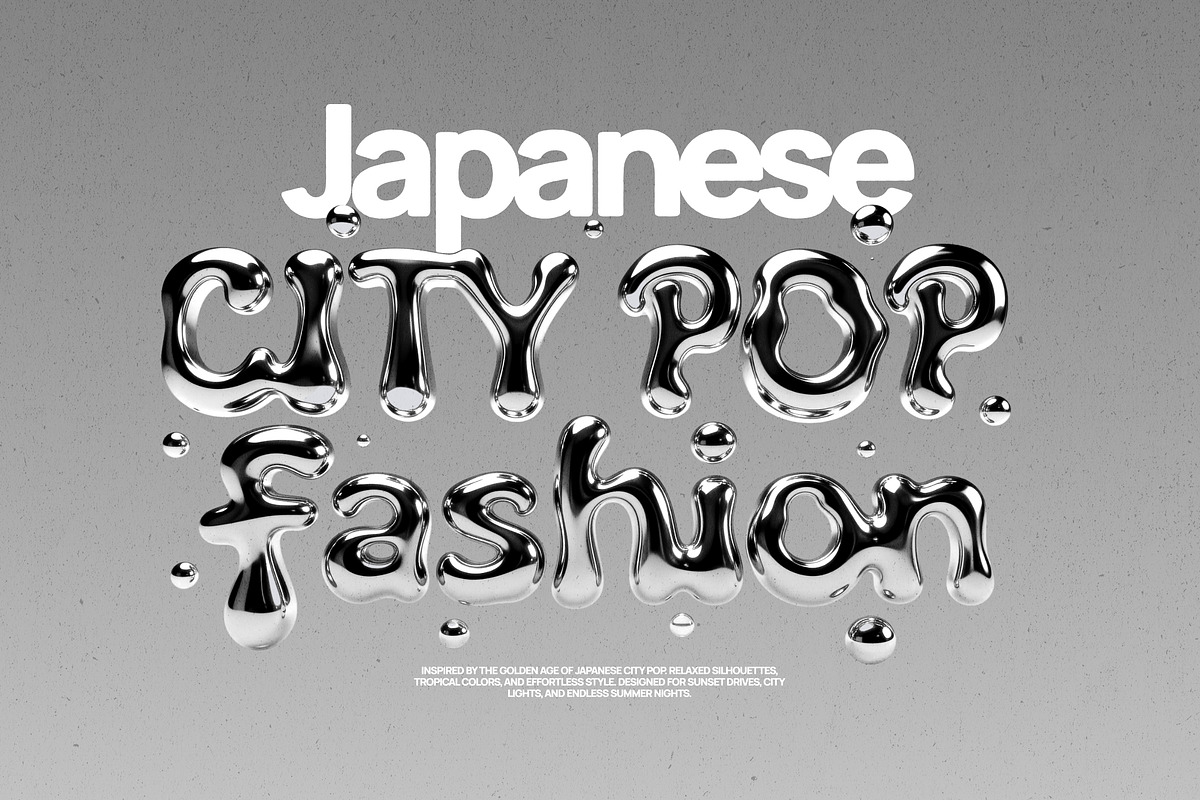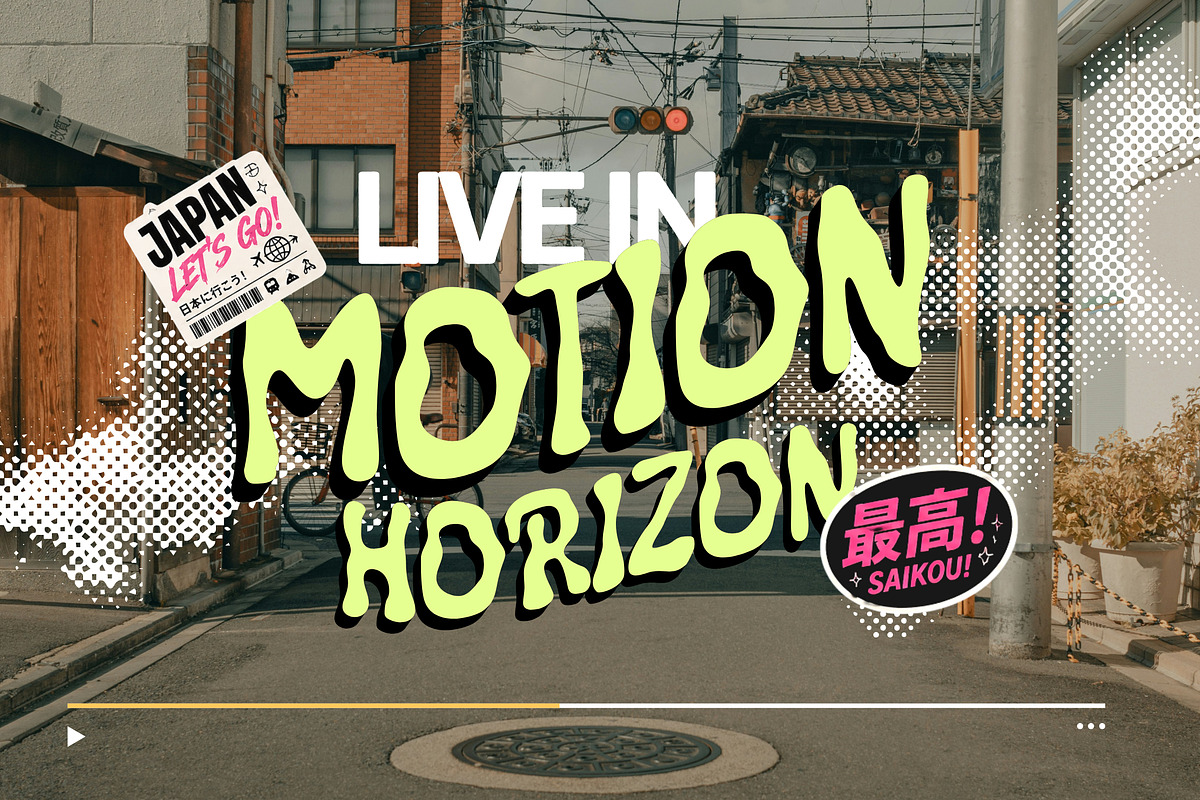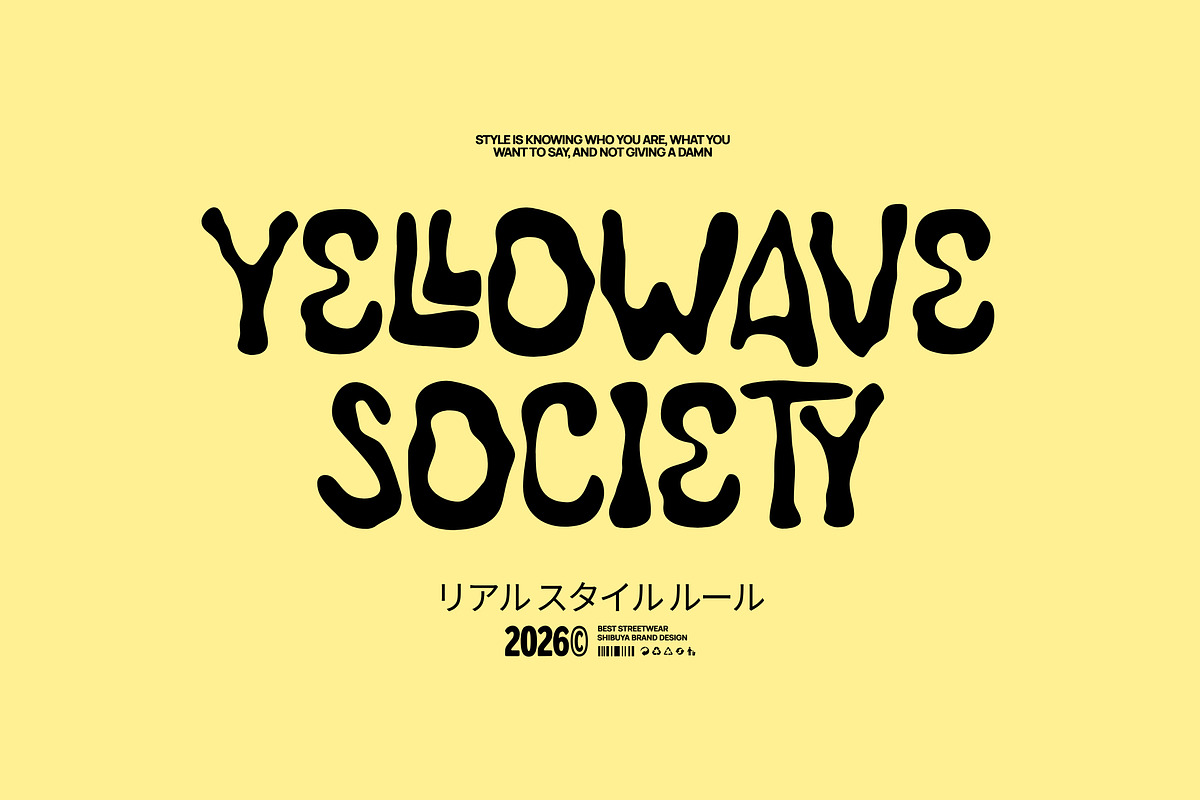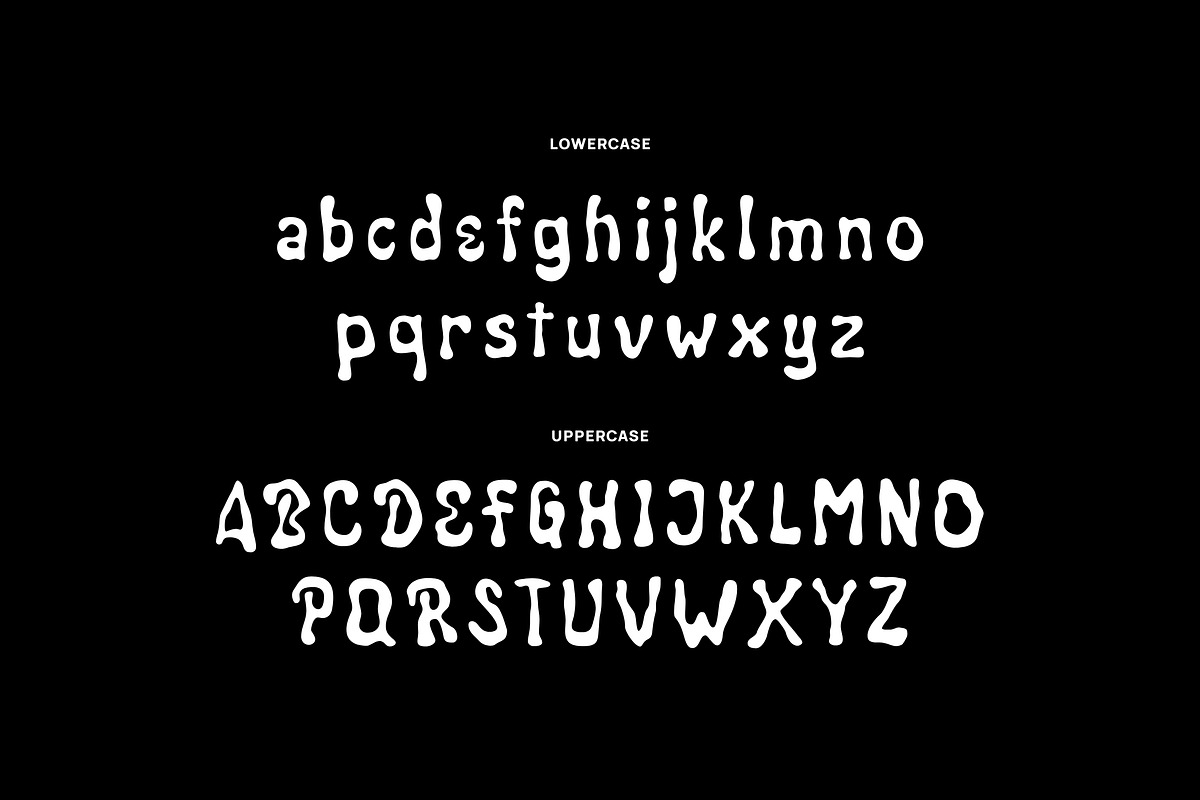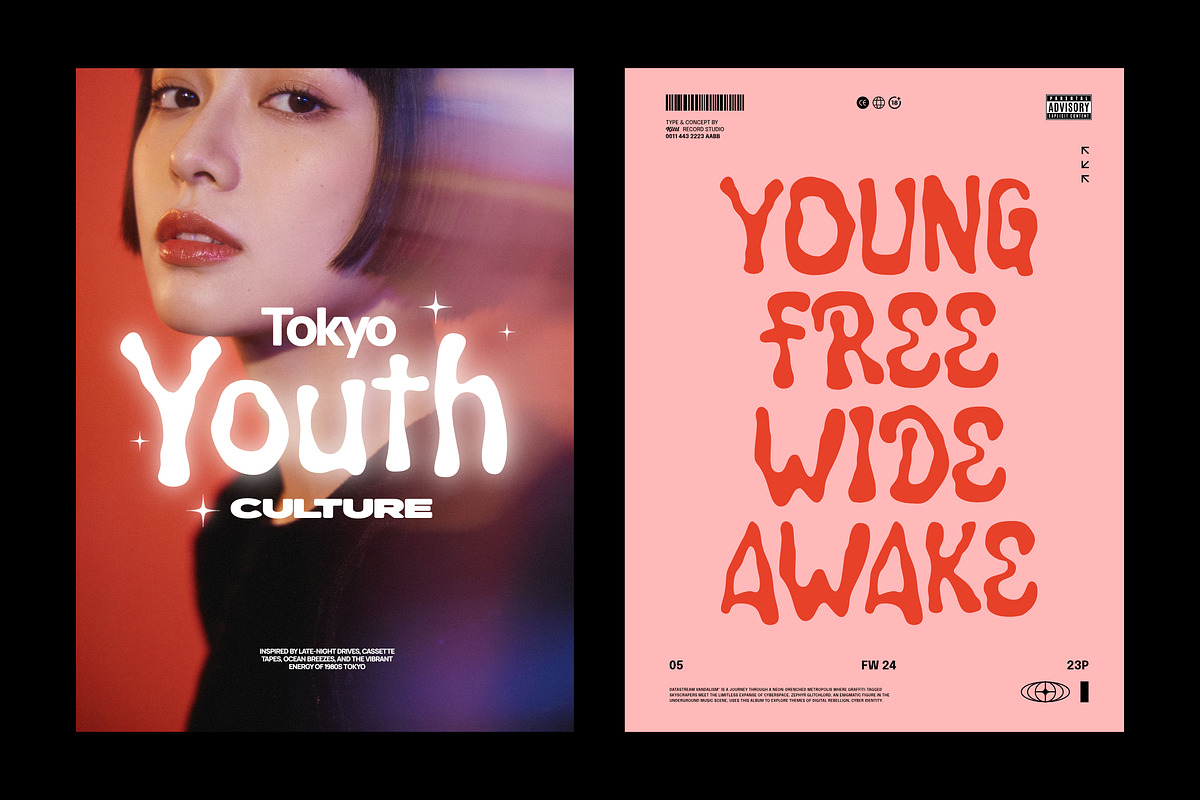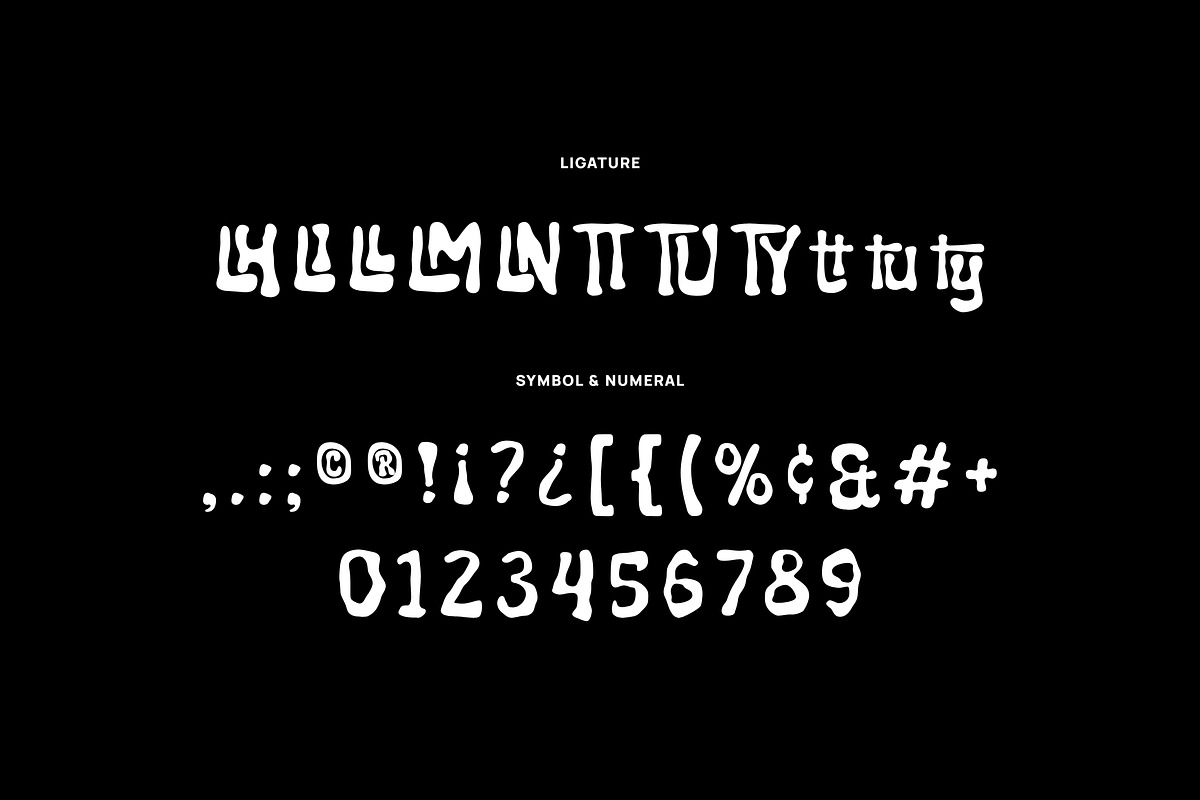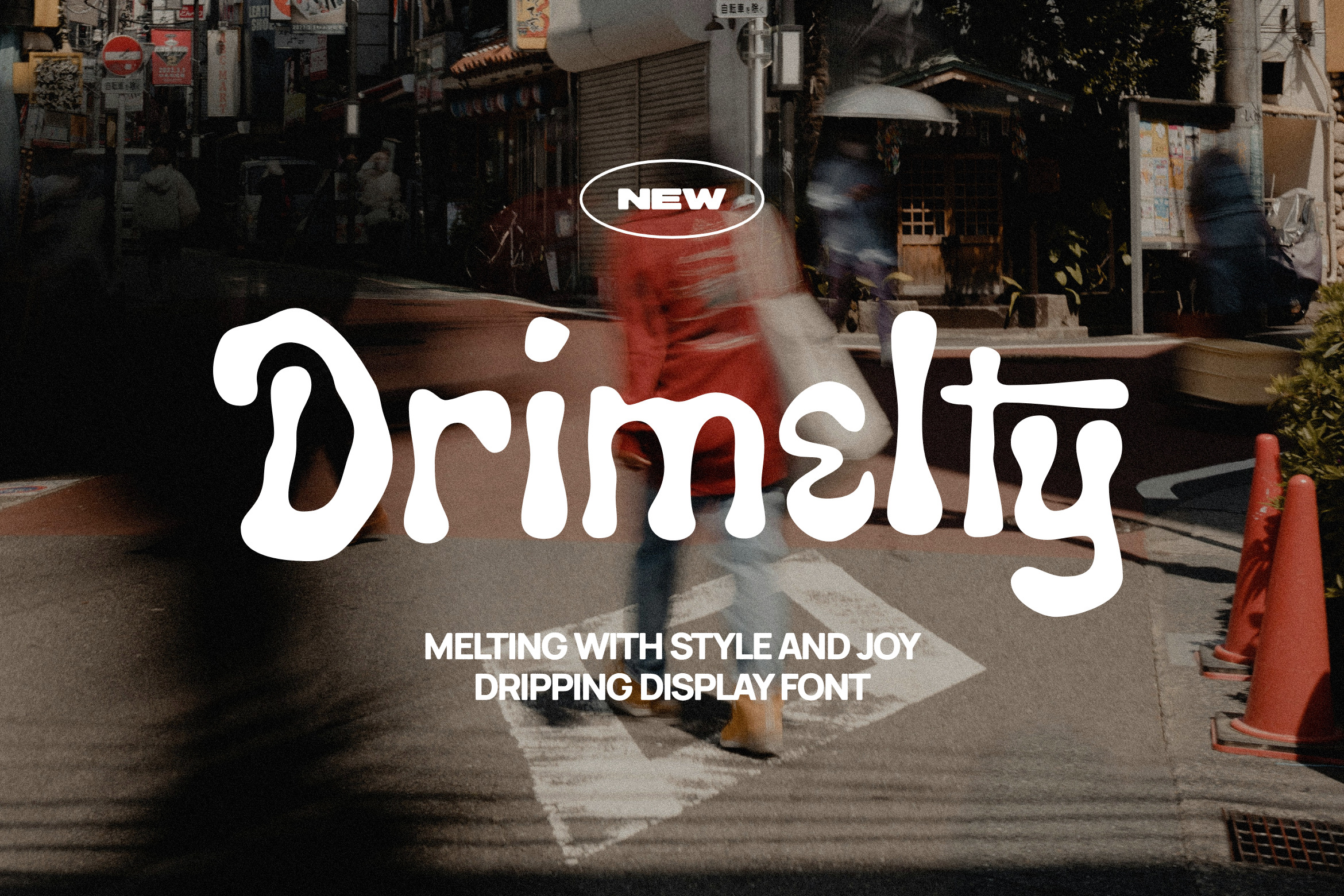
Drimelty - Melting Display Font
Drimelty is a melting display typeface built for designers who want their headlines to feel alive. Every letter rounded strokes that swell and taper, with organic drips and gooey terminals that give the whole alphabet a liquid, hand poured quality. The character shapes borrow from psychedelic and groovy 70s lettering.
Drimelty works hardest where personality matters most streetwear graphics, music posters, album covers, zines, skate and surf branding, cafe and dessert logos, social media headlines, packaging, YouTube thumbnails, and any project that needs a retro groovy or Y2K adjacent edge.
Uppercase and Lowecase Characters.
Numerals and Punctuations.
Alternates and Ligatures.
Multilingual Support.